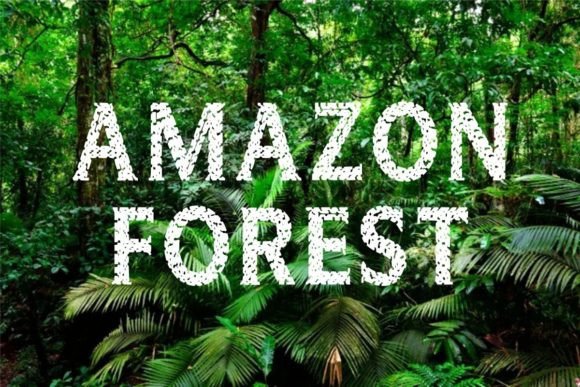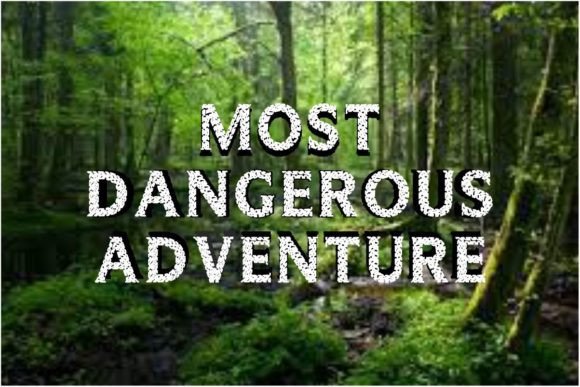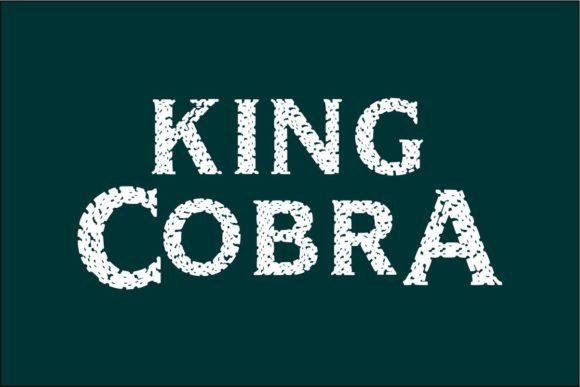
Introduction to Reptile Font
Reptile is a cool and modern display font.
Whimsical and with a fun reptile skin texture, will definitely enhance your designs The only limit is your imagination.
Reptile Font offers exceptional quality and versatility, making it a valuable addition to your design toolkit. Whether you’re creating for personal projects or commercial use, Reptile Font delivers professional results.